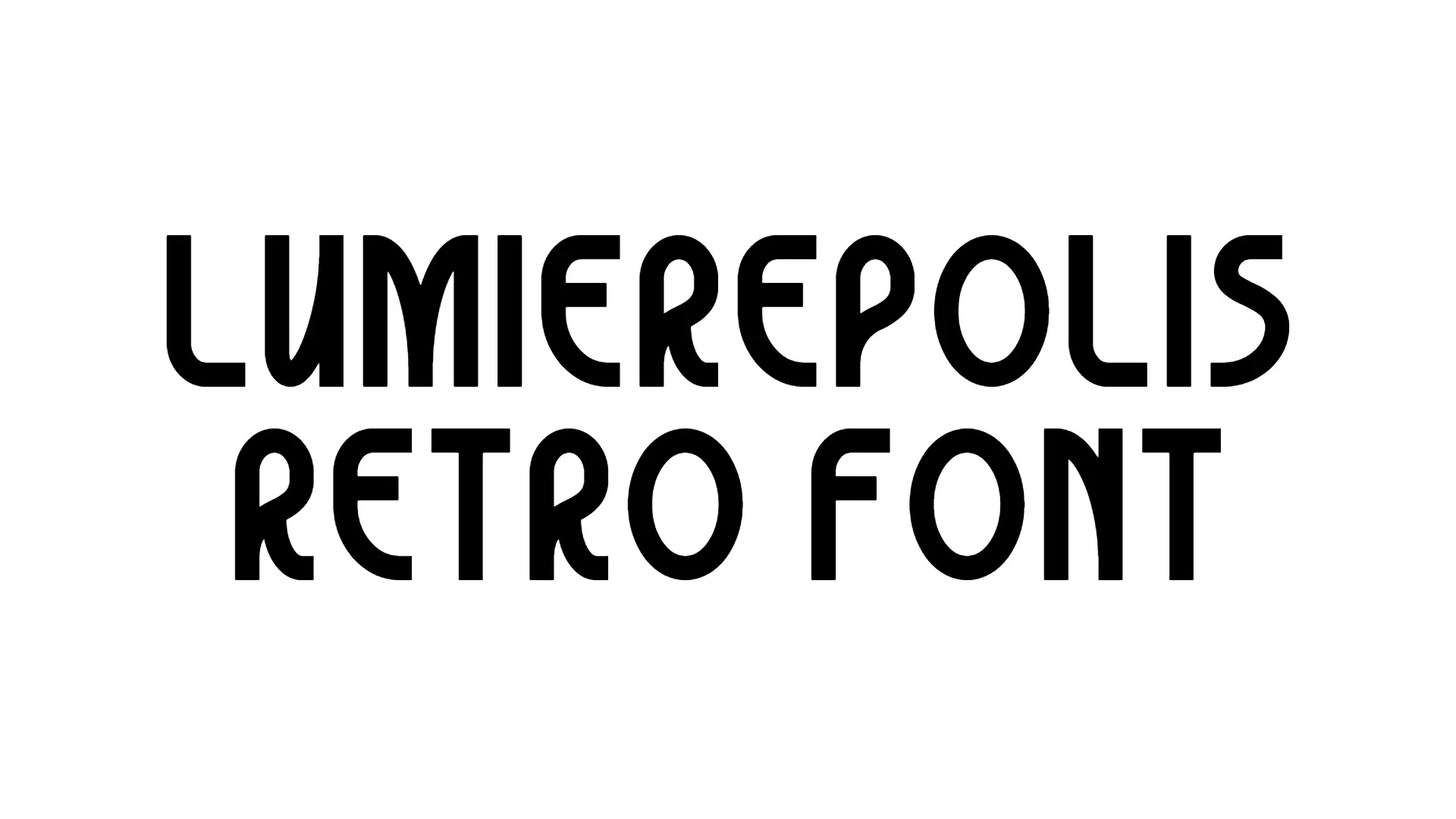
Lumierepolis Retro
Lumierepolis Retro is a fancy font made by GGBotNet. Bold and full of character, it's built to stand out rather than blend in. The free download includes six styles, and you can try every one of them with your own text in the preview above.
- Designer: GGBotNet
- Font styles: 6 (Regular, Light, Light Italic, Bold, Bold Italic and Italic)
- Glyphs: 134 in the Regular style
What You Can Type With Lumierepolis Retro
Lumierepolis Retro covers the full alphabet in upper and lowercase, plus all ten numbers, so you can set names, dates and prices without switching fonts. Everyday marks like ! and ? are there too. It has 2 accented letters, but not the full set for Spanish or French, so test any non-English words first.
Where Lumierepolis Retro Works Best
Designers usually reach for fonts like Lumierepolis Retro when they're making posters, logos and eye-catching headlines. Use it for one standout word or headline and let simpler fonts handle the rest. Because the family has more than one style, you can mix them in a single design for headings, subheadings and highlights.
Does Lumierepolis Retro support accented letters?
Partly. Lumierepolis Retro has 2 accented letters, but not the complete set for Spanish, French or German. Type your words in the preview above to check before you use it.